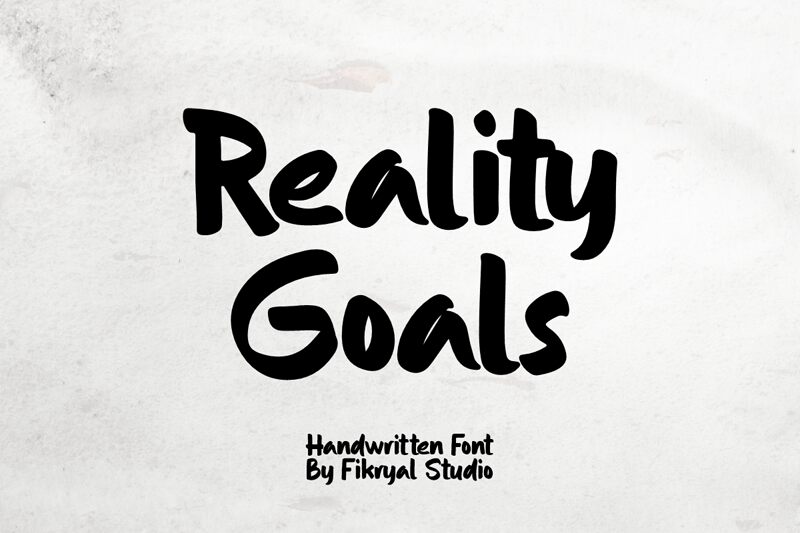
Crafted with a distinct handwritten flair, "Reality Goals" by Fikryal Studio captivates with its organic, expressive strokes. The font's natural ebb and flow evokes a sense of authenticity and human connection, making it an alluring choice for branding, packaging, and editorial designs. Its delightful imperfections and playful, yet refined aesthetic lend an inviting, approachable quality that can elevate a wide range of creative projects.
The versatility of "Reality Goals" makes it a versatile selection for designers seeking to infuse their work with a touch of handcrafted charm. Its adaptability shines through in applications ranging from heartfelt stationery and artisanal product labeling to eye-catching social media graphics and contemporary typographic art. The font's dynamic personality seamlessly complements both modern and vintage-inspired design aesthetics, offering endless opportunities to captivate and engage audiences.